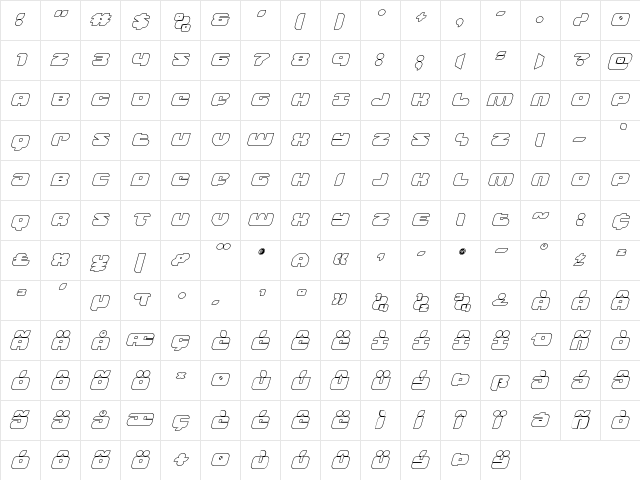
Groovy Smoothie Outline Italic Font Preview
Design Context for Groovy Smoothie Outline Italic Typeface
Groovy Smoothie Outline Italic is built around its visual character rather than neutral utility — its distinctive forms are designed to make an impression at display sizes. Its italic angle brings a sense of urgency and motion to the letterforms.
Font Pairing: Pair with a clean neutral sans-serif for body copy to let Groovy Smoothie Outline Italic's character lead without overwhelming the composition.
Pro Tip: Treat Groovy Smoothie Outline Italic as the centrepiece of your typographic hierarchy. One strong heading set in a decorative face can carry an entire layout.